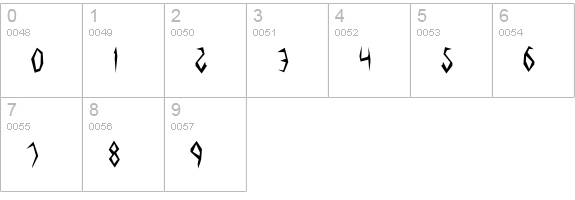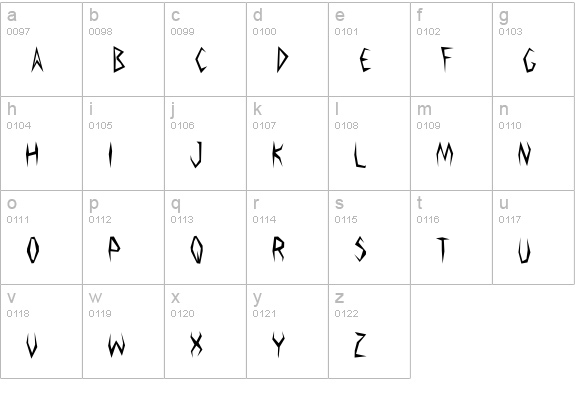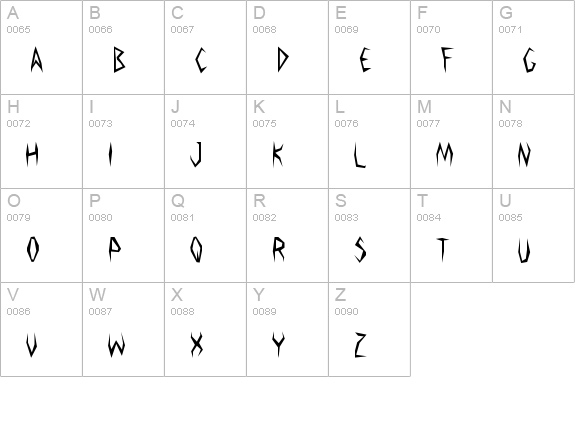
Argosy the Second Font Details
Argosy the Second is a stunning and elegant font that exudes sophistication and class. With its unique and stylish design, this font is perfect for adding a touch of luxury to any project or design. The sleek lines and intricate details of Argosy the Second make it stand out from the crowd and give your text a refined and polished look. What sets Argosy the Second apart is not just its beauty, but also the fact that it is available for free download at FontsMarket.com. This means that you can easily access this high-quality font without having to worry about any costs or restrictions. Whether you are working on a professional project or simply looking to add a touch of flair to your personal designs, Argosy the Second is the perfect choice. Download Argosy the Second today and elevate your designs with this exquisite and luxurious font. Let your creativity shine with this free and easily accessible typeface that is sure to impress.